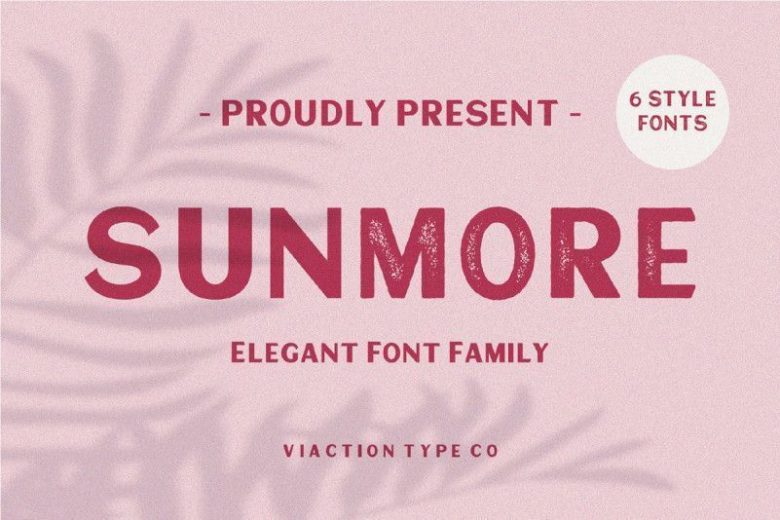
Sunmore Font Family
Sunmore is a versatile sans serif typeface with both uppercase and lowercase letters! This font is for those who want to show something smooth and modern. You may use this font if you want to attract modern buyers.
Sunmore Sans Serif an created by Viaction Type.Co. It’s a sans serif font with elegant characters. It’s perfect for your elegant-themed work, suitable also for elegant vintage.
This font is available in six font style variants, making it easy to do work on various design themes. Sunmore Font is equipped with multilingual accents.